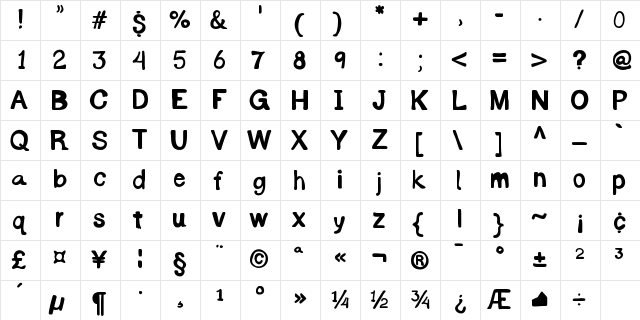
ByronRecCon Medium Free Font
ByronRecCon Medium
Design Context for ByronRecCon
ByronRecCon is a composed and adaptable typeface that performs quietly and consistently across a wide range of design contexts.
Pro Tip: Use ByronRecCon in both headline and body roles to test its range before committing to a single application.